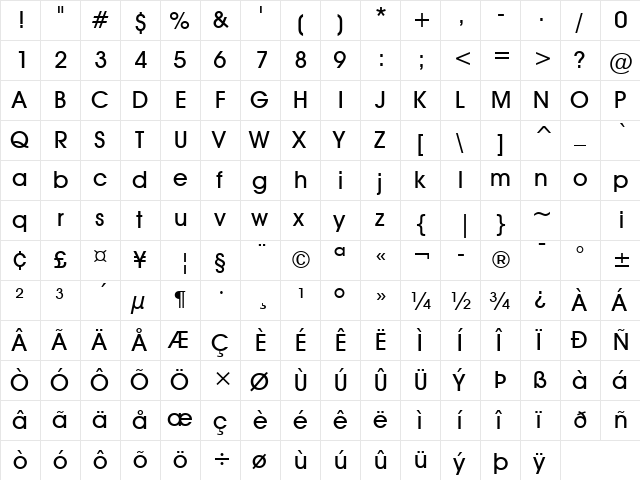
AvantGarde Md BT Medium
Design Context for AvantGarde Md BT Typeface
AvantGarde Md BT is a composed and adaptable typeface that performs quietly and consistently across a wide range of design contexts.
Pro Tip: Pair AvantGarde Md BT with a font of contrasting weight or personality to build a more expressive typographic hierarchy.